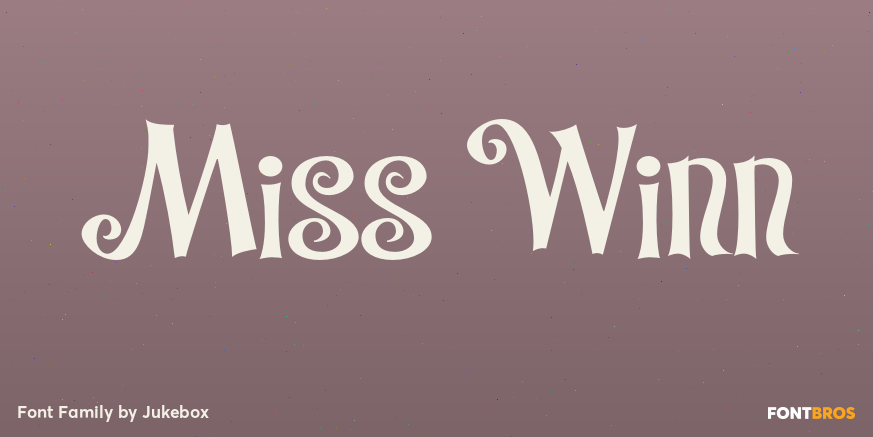
Miss Winn
Miss Winn is another Jukebox font inspired by the work of the late sign painter Mike Stevens. This fun, exuberant font has a set of over 150 alternate ligatures that gives the typeface a more hand lettered feel when used. They are found under the Discretionary…